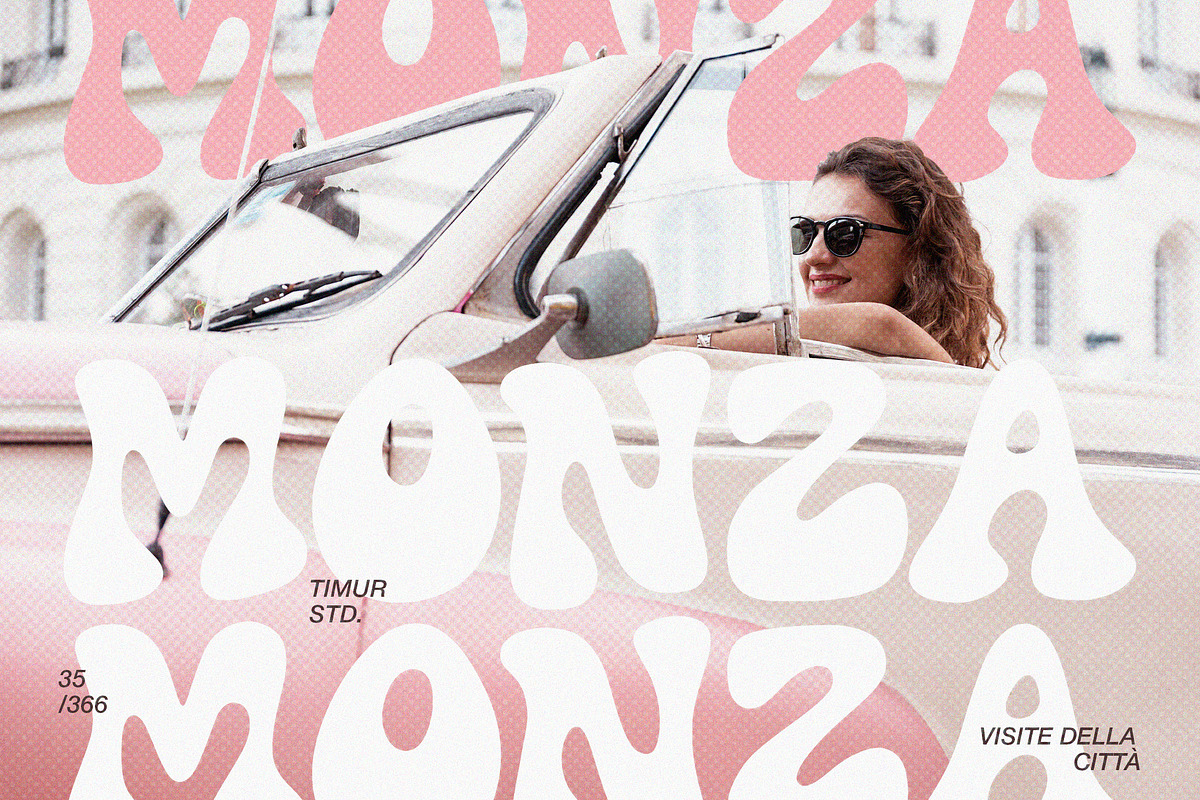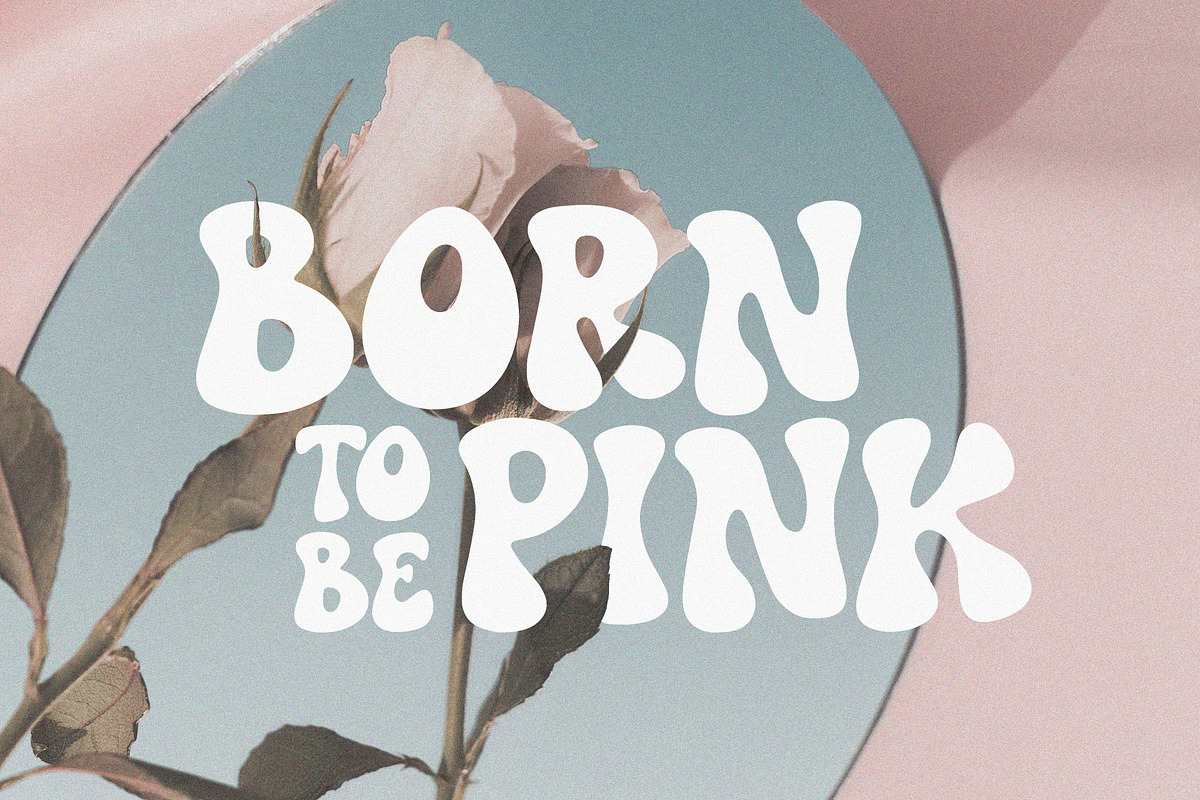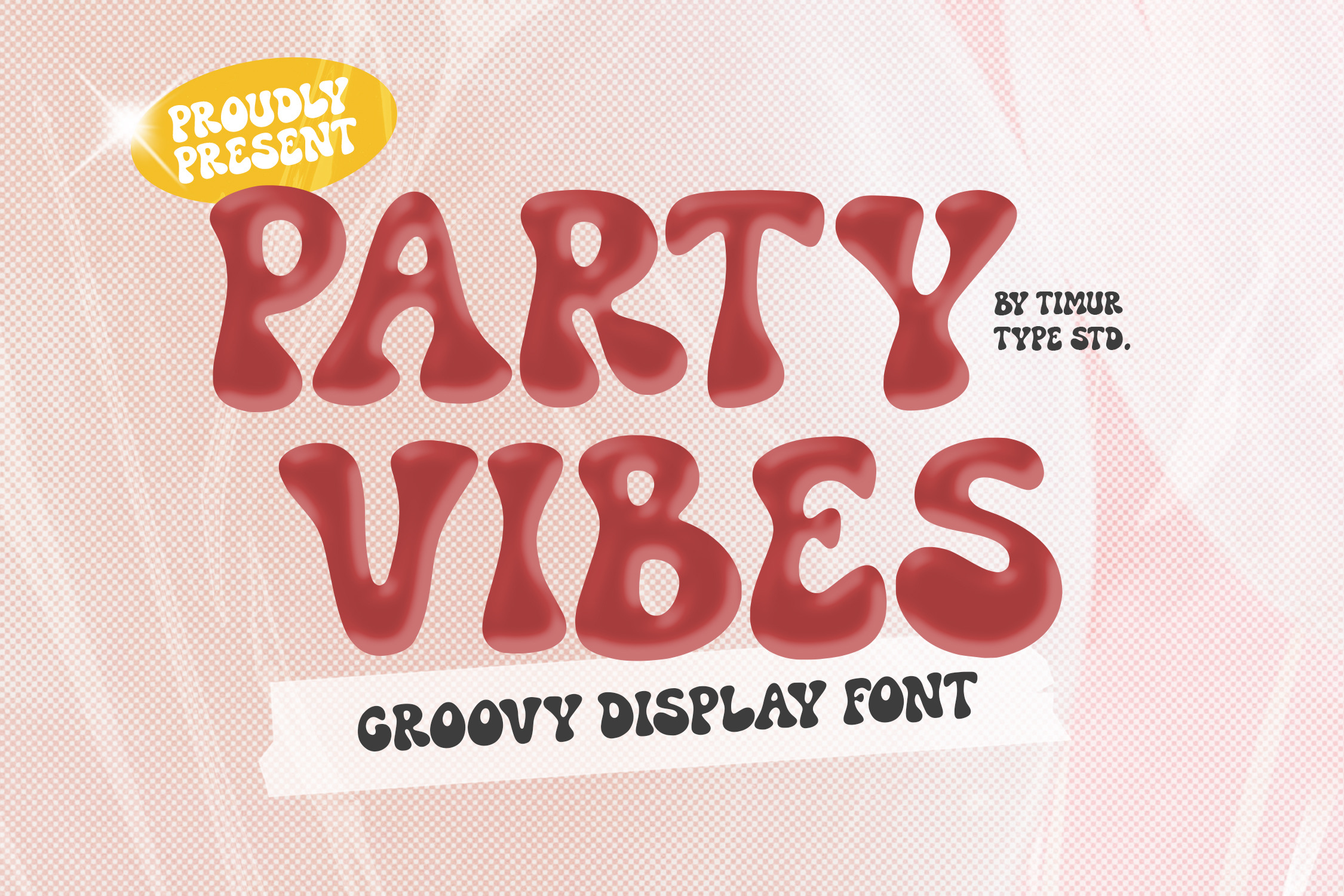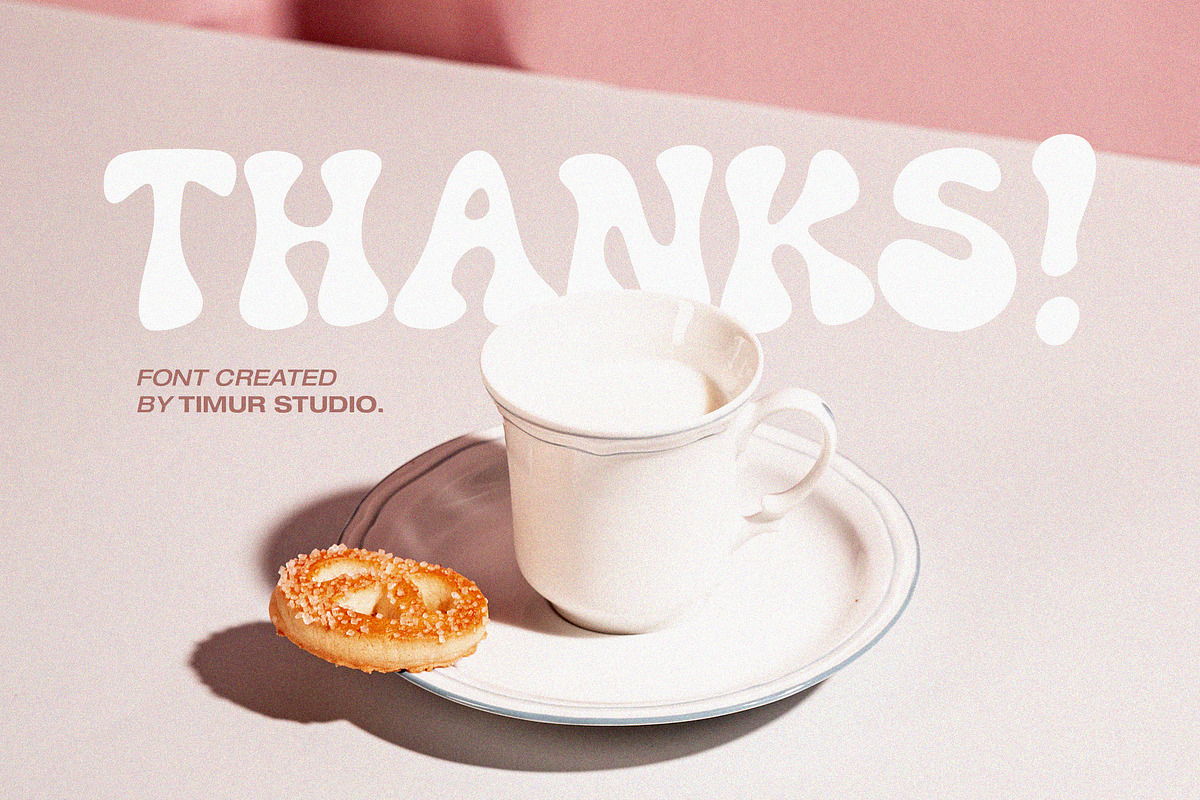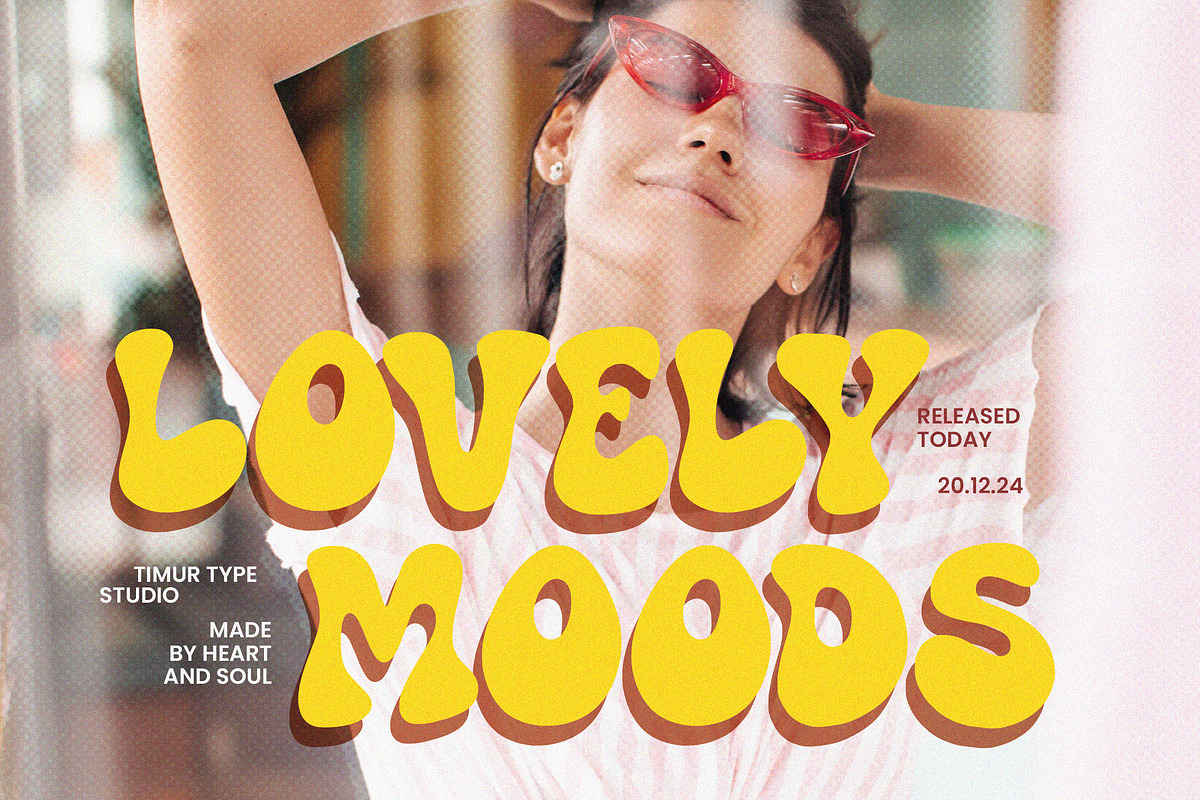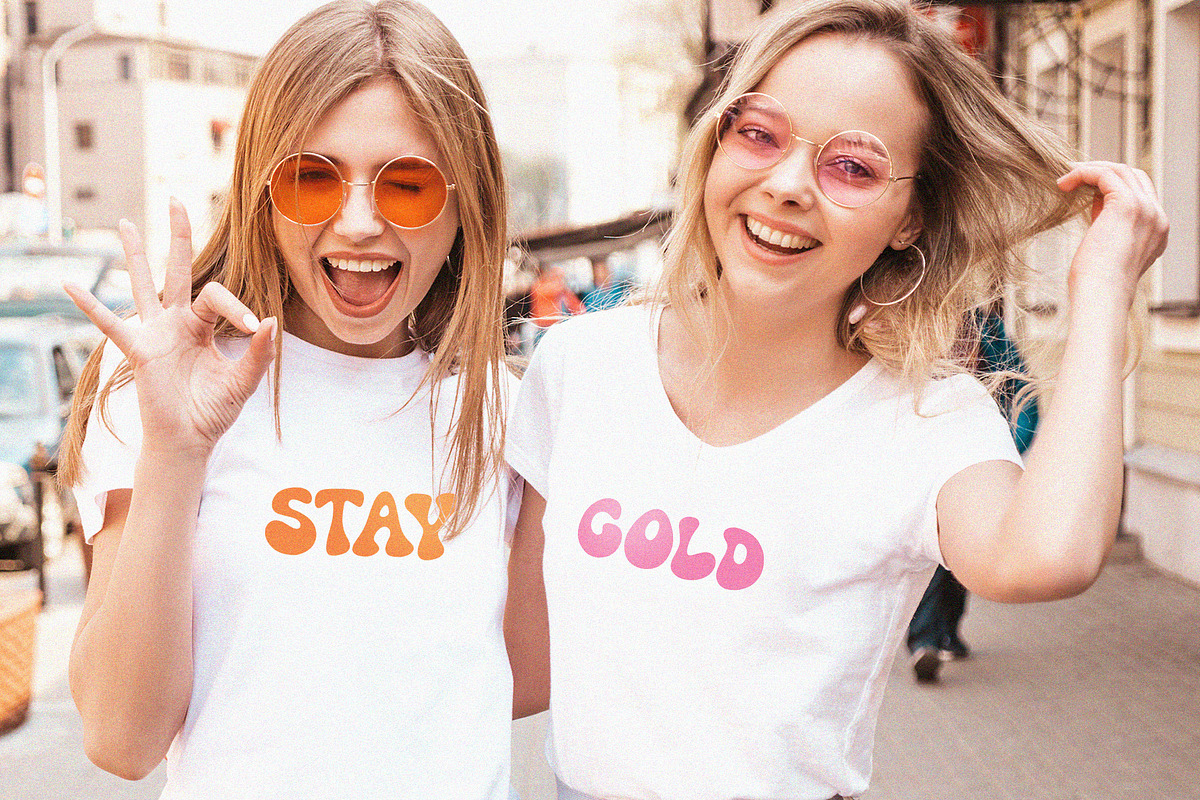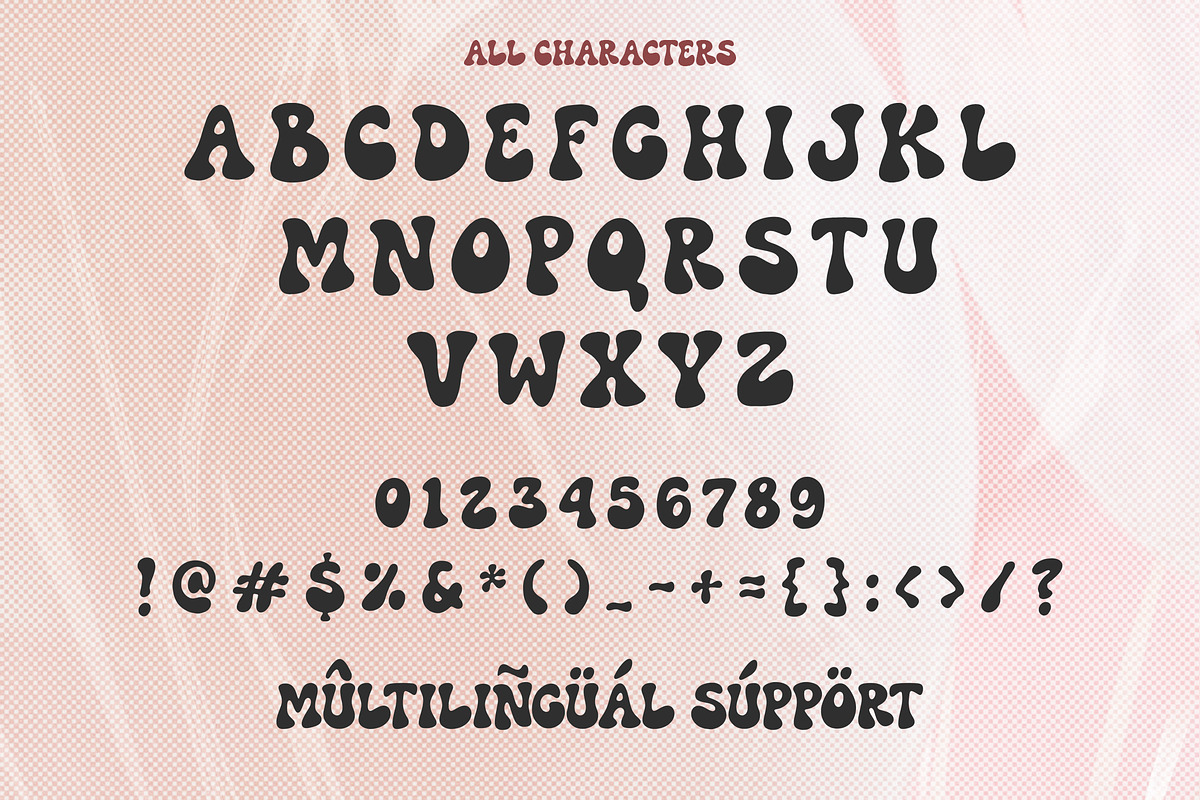
Party Vibes Font
Introduced by Timurtype Studio!
Party Vibes is a Groovy Display Font
This font is a lively and energetic choice for your design projects. With its bold and vibrant letterforms, this font captures the essence of a fun and festive atmosphere. The playful curves and dynamic strokes give the Party Vibes font a retro and celebratory aesthetic, perfect for adding a groovy and party-like vibe to your event invitations, posters, and digital designs. Whether you’re aiming for a 70s disco feel or a modern neon look, the Party Vibes font offers versatility and excitement. Embrace the festive energy of the Party Vibes groovy display font and bring a lively and energetic touch to your designs that will make them stand out and get the party started.
Party Vibes Font also supports multilingualism